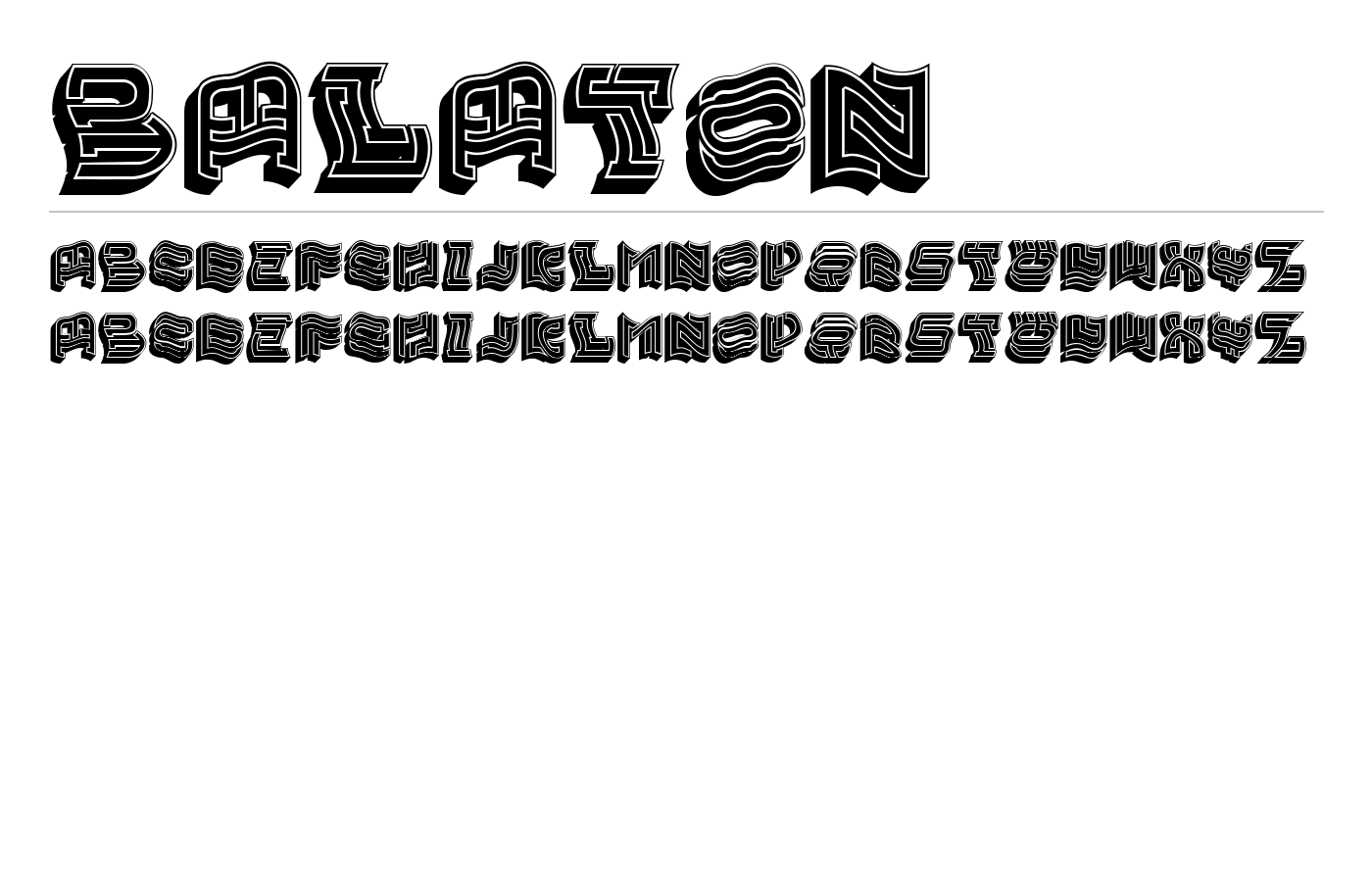
Balaton is a bold and decorative display font with a unique, layered 3D effect that gives each letter a striking, sculptural appearance. Its uppercase-only, intricate letterforms combine vintage gothic influences with modern, graphic shadowing, making it perfect for eye-catching headlines, logos, or posters that need a strong, artistic personality. This font works best in creative branding and editorial projects where a dramatic, standout look is desired.
Balaton Font
About Balaton Font
| Font family | Balaton Font |